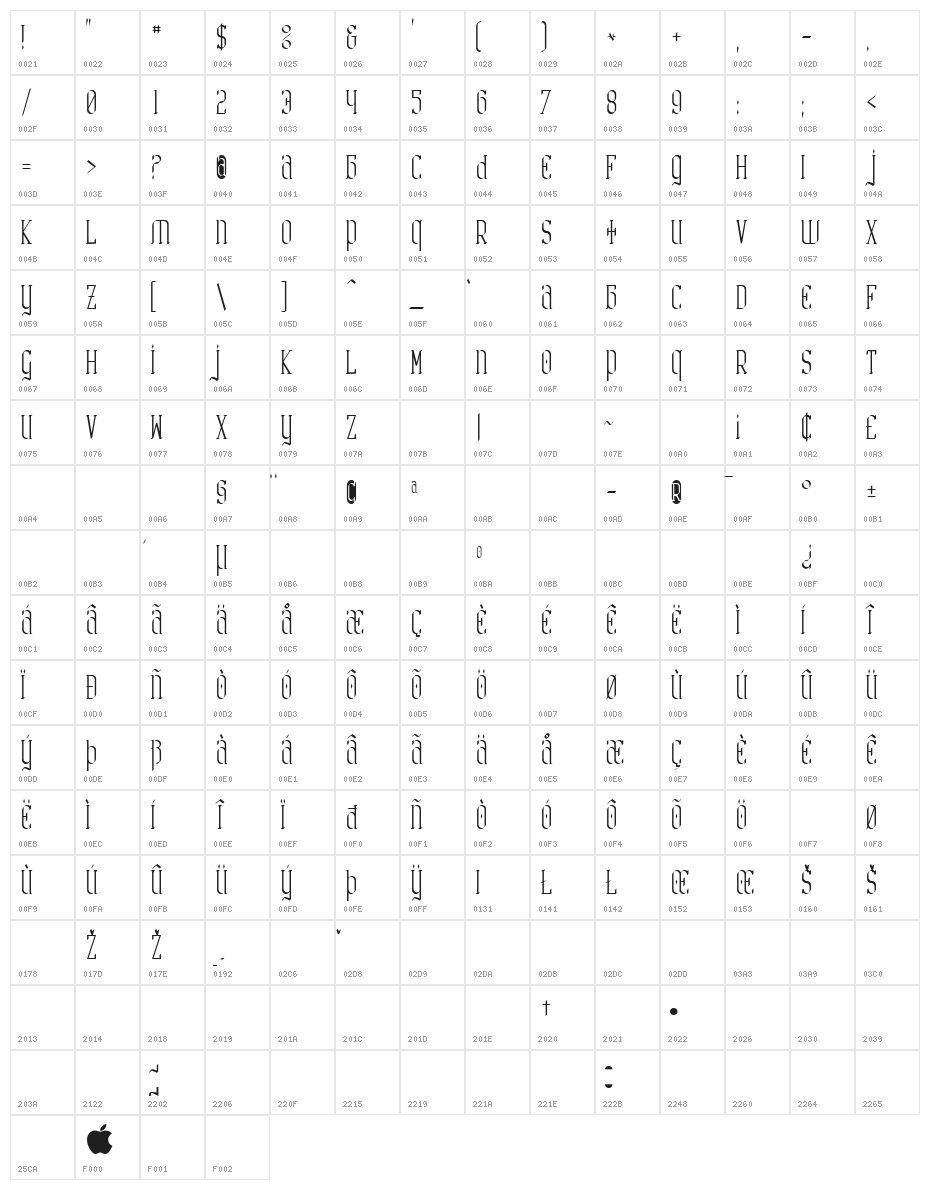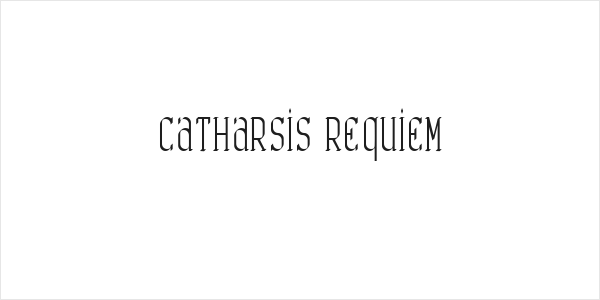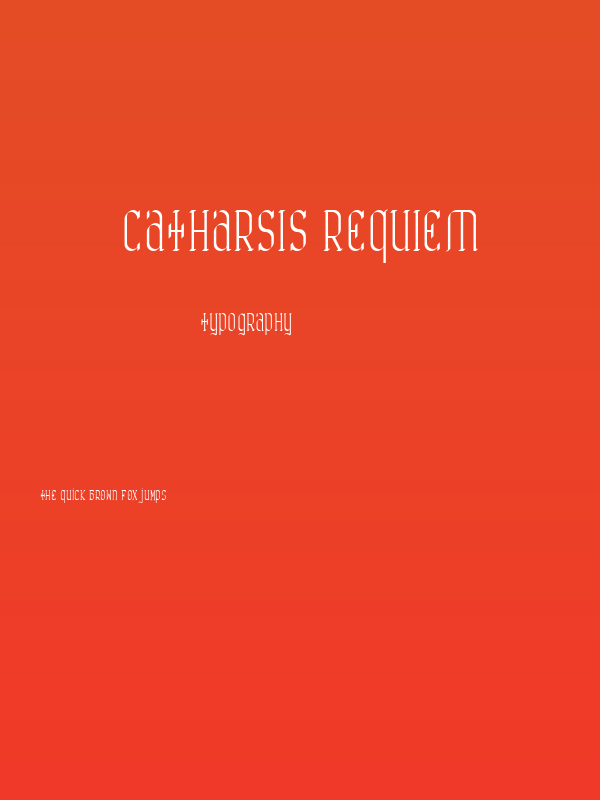
Catharsis Requiem Font
Catharsis Requiem Description
This font features a unique blend of modern and gothic elements, characterized by its tall, narrow letterforms and sharp, angular serifs. The uppercase letters exhibit a striking vertical emphasis, while the lowercase letters maintain a consistent height, contributing to a cohesive and structured appearance. The numerals and special characters are designed with the same attention to detail, ensuring a harmonious look across all text. The font's distinct style is both elegant and edgy, making it suitable for projects that require a bold statement. Its intricate design elements, such as the pointed serifs and occasional flourishes, add a touch of sophistication and drama.
Overall StyleModern Gothic
Proposed ProjectsIdeal for branding, editorial design, posters, and album covers.